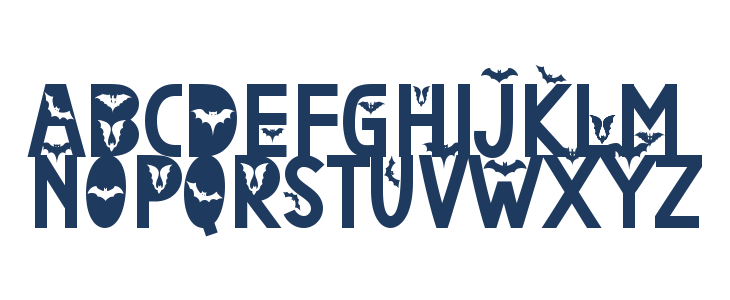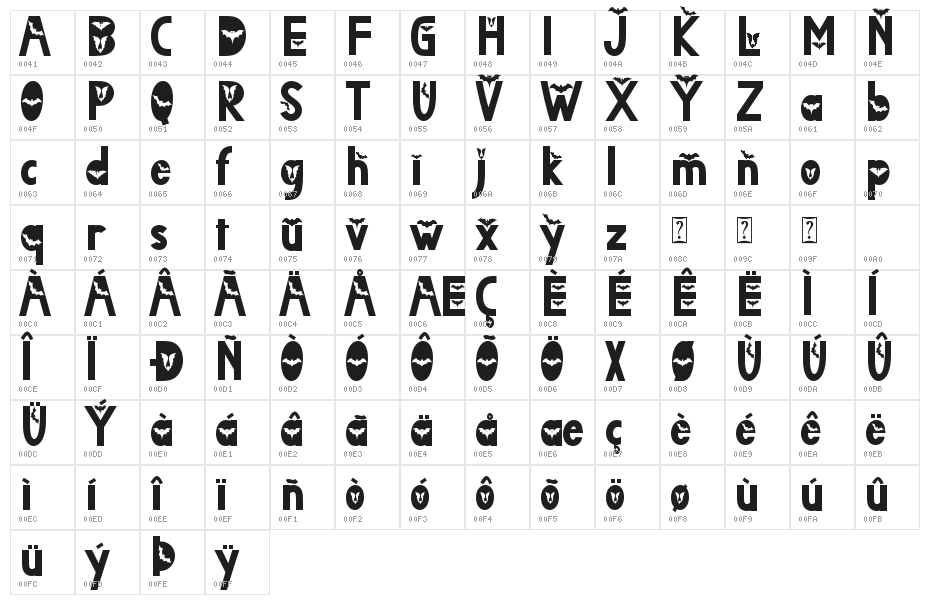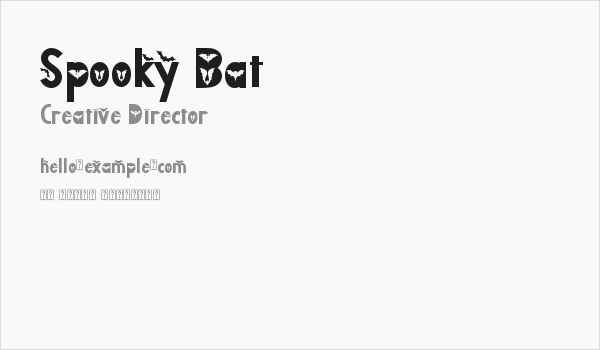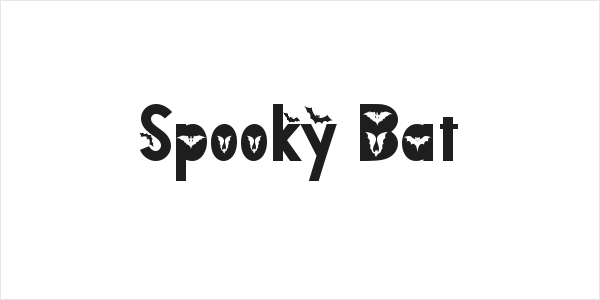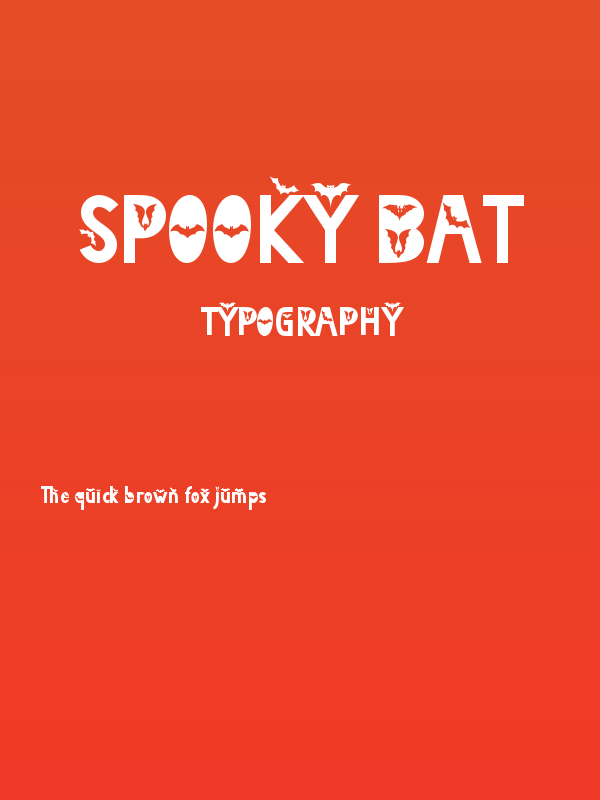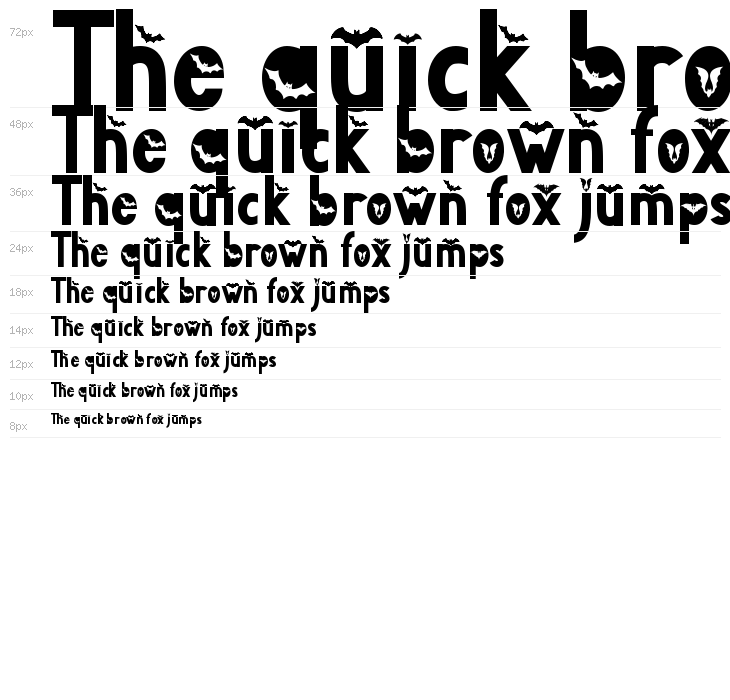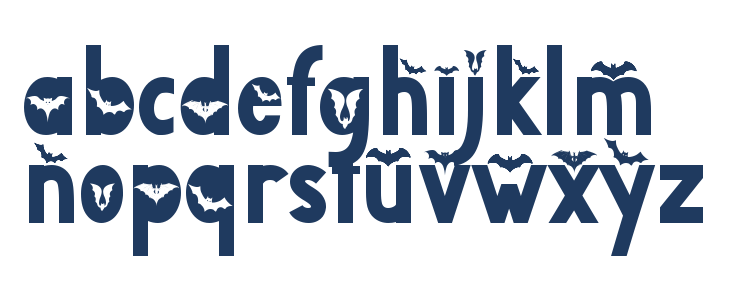
Spooky Bat Font
Spooky Bat Description
A bold, sans-serif display font featuring playful bat silhouettes integrated into the letterforms, evoking a spooky and Halloween-inspired atmosphere. The characters are geometric and evenly spaced, with bats replacing counters or perched above certain letters.
| Overall Style | Decorative, Playful, Spooky |
| Use Case | Headlines, Posters, Event Invitations, Logos |
| Proposed Projects | Halloween invitations, party flyers, themed posters, seasonal branding, event signage, children's crafts. |